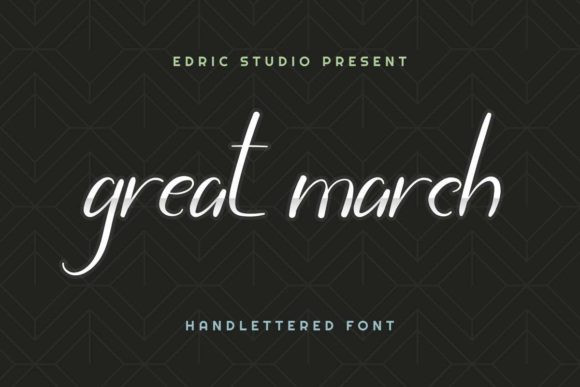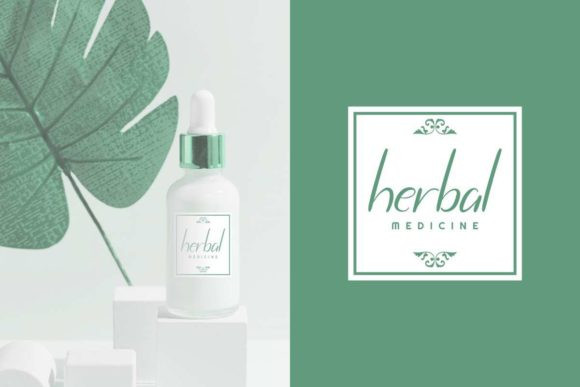
Great March Font
Great March is a sweet and cursive handwritten font. This gentle font will look gorgeous on a variety of design ideas. It will add a joyful and romantic touch to each of your projects!